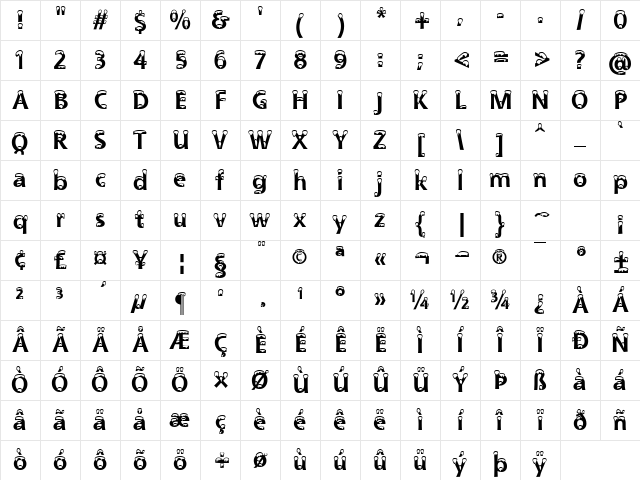
Snowdrift Regular
Snowdrift Family
Design Context for Snowdrift
Snowdrift is a composed and adaptable typeface that performs quietly and consistently across a wide range of design contexts.
Pro Tip: Use Snowdrift in both headline and body roles to test its range before committing to a single application.